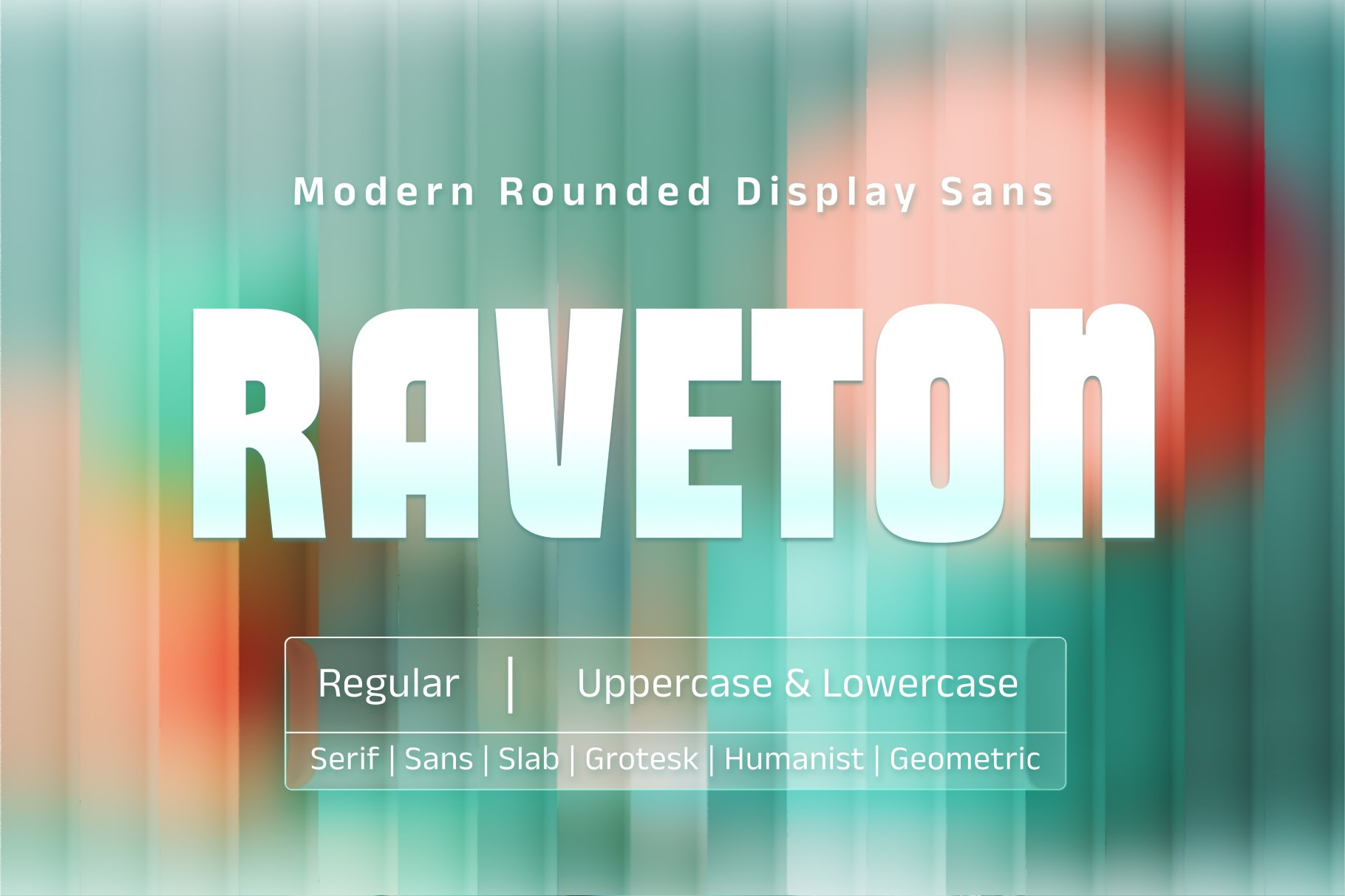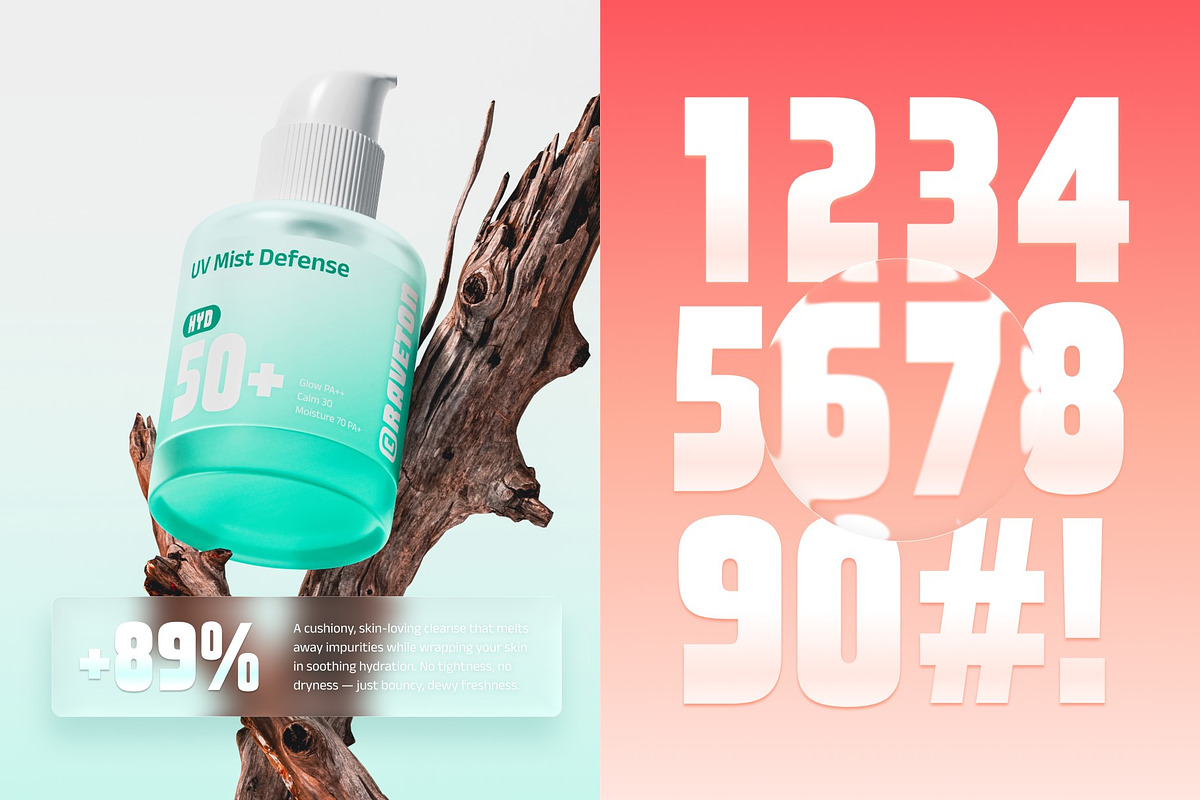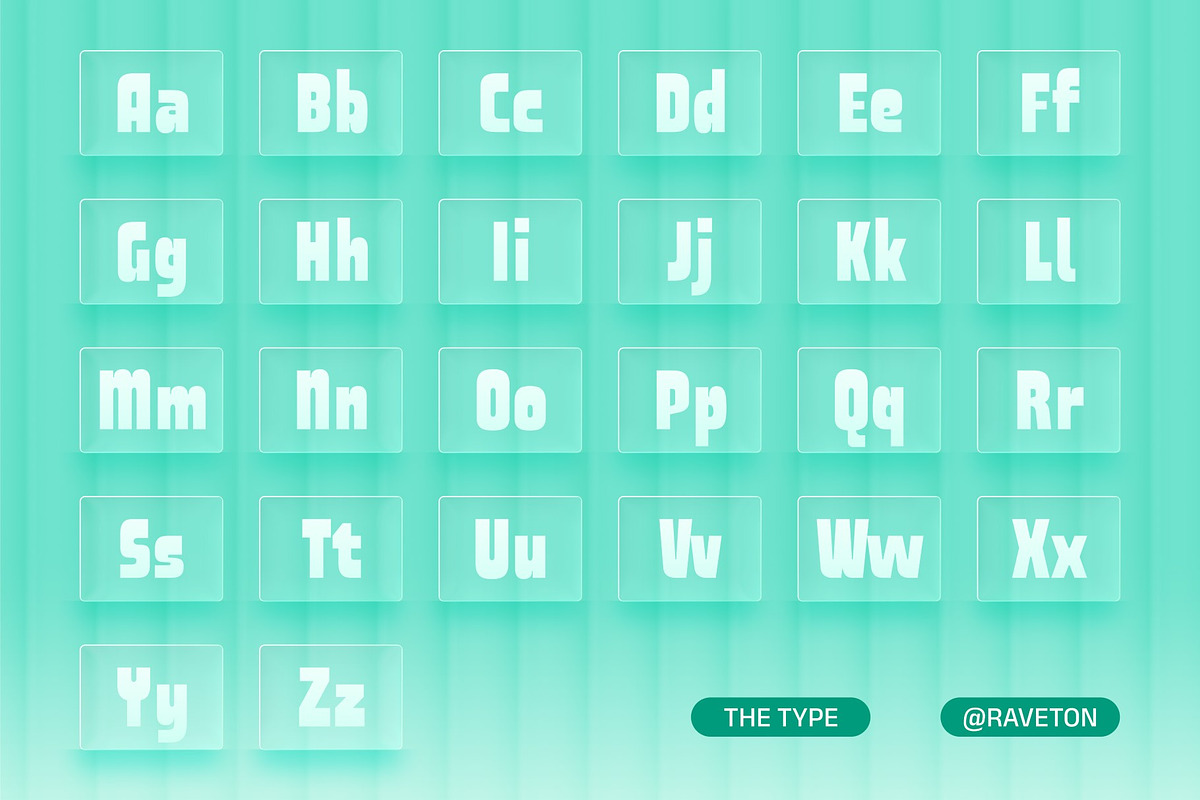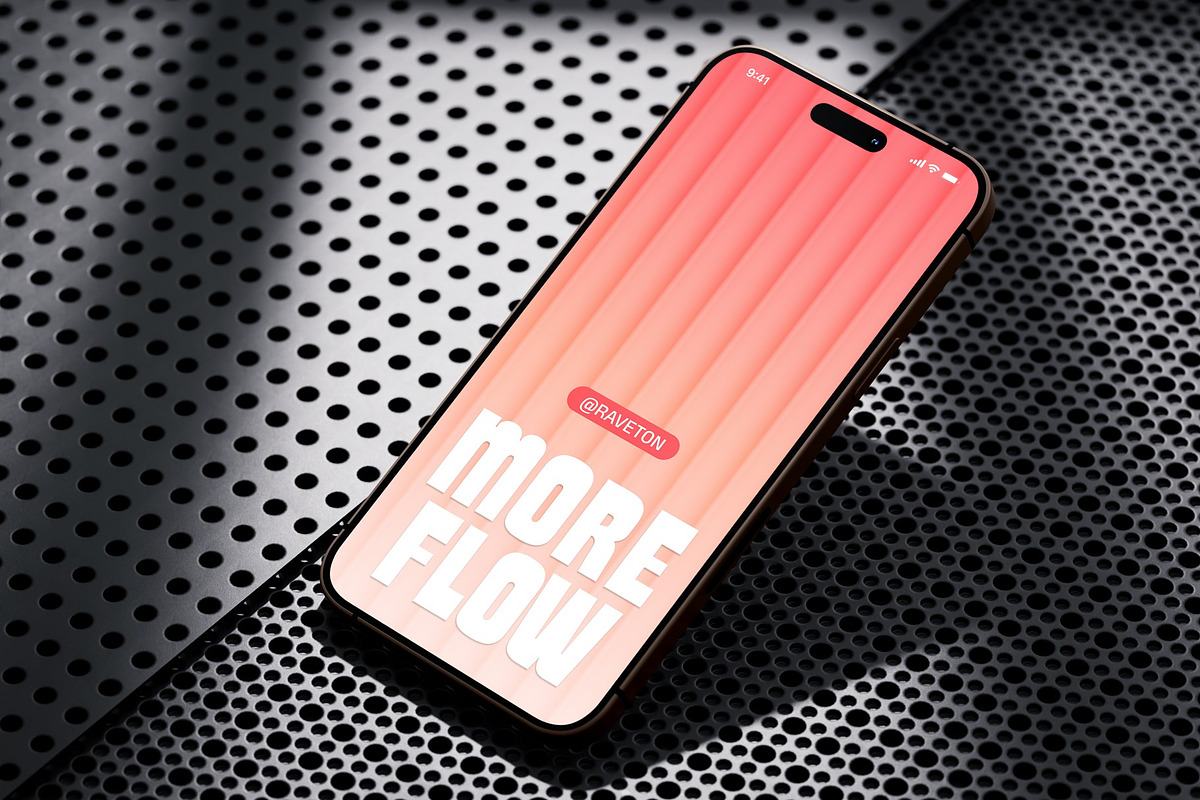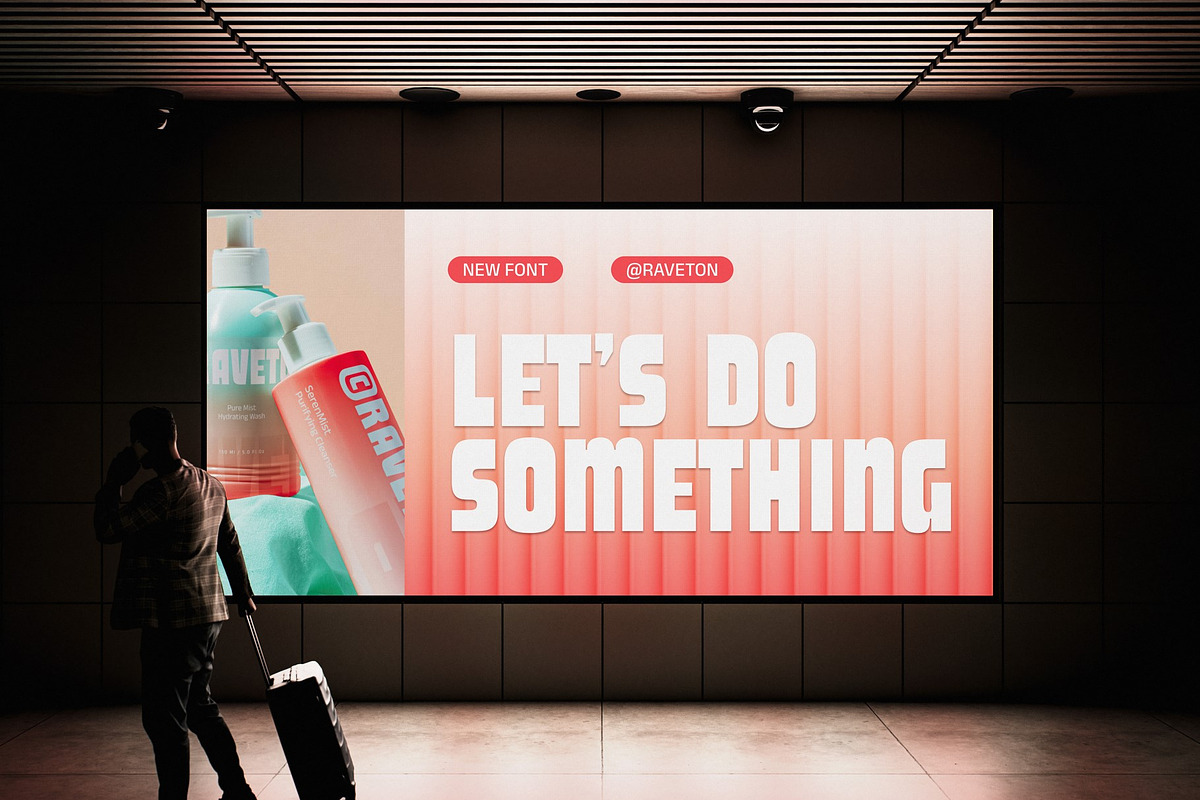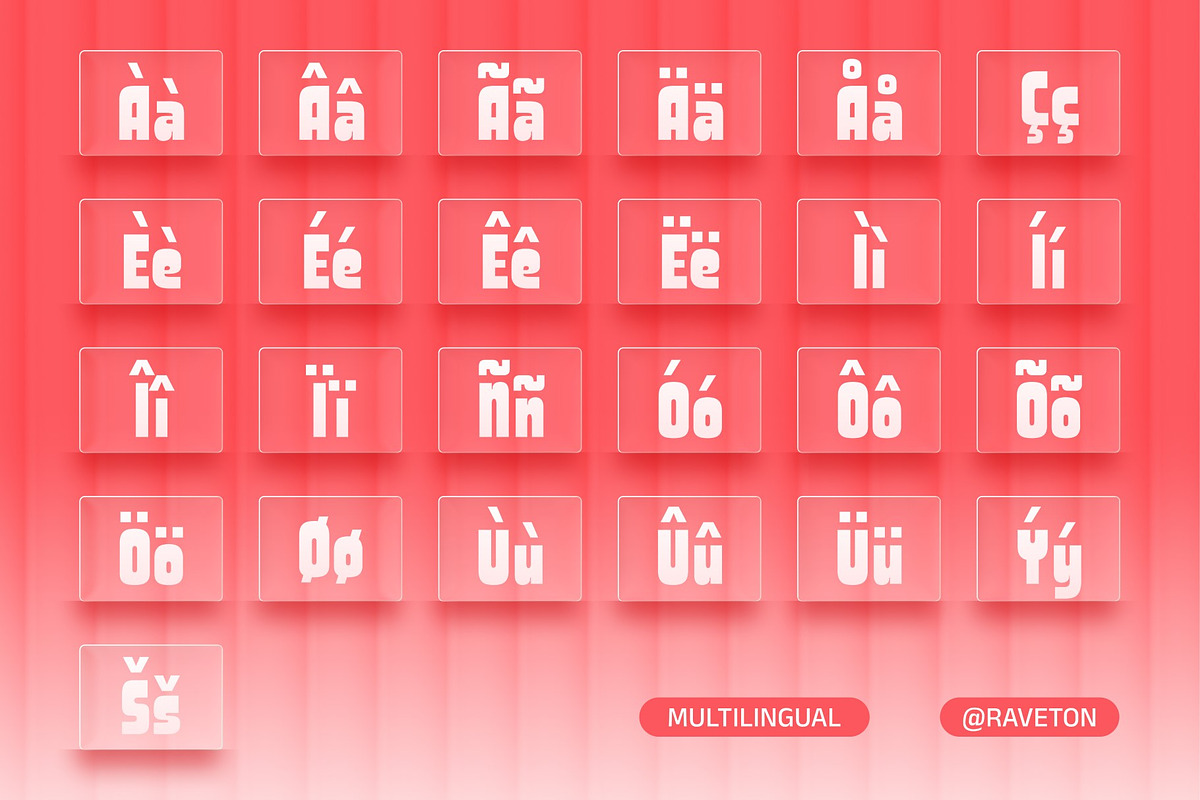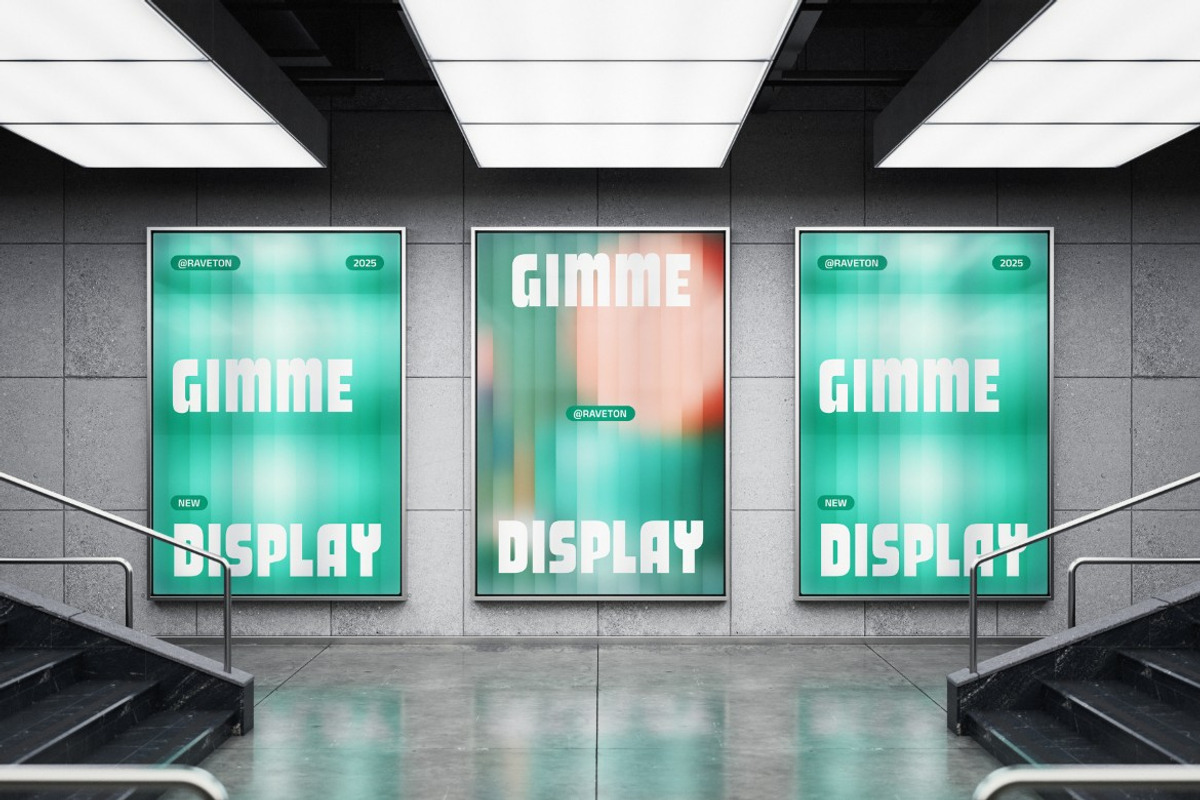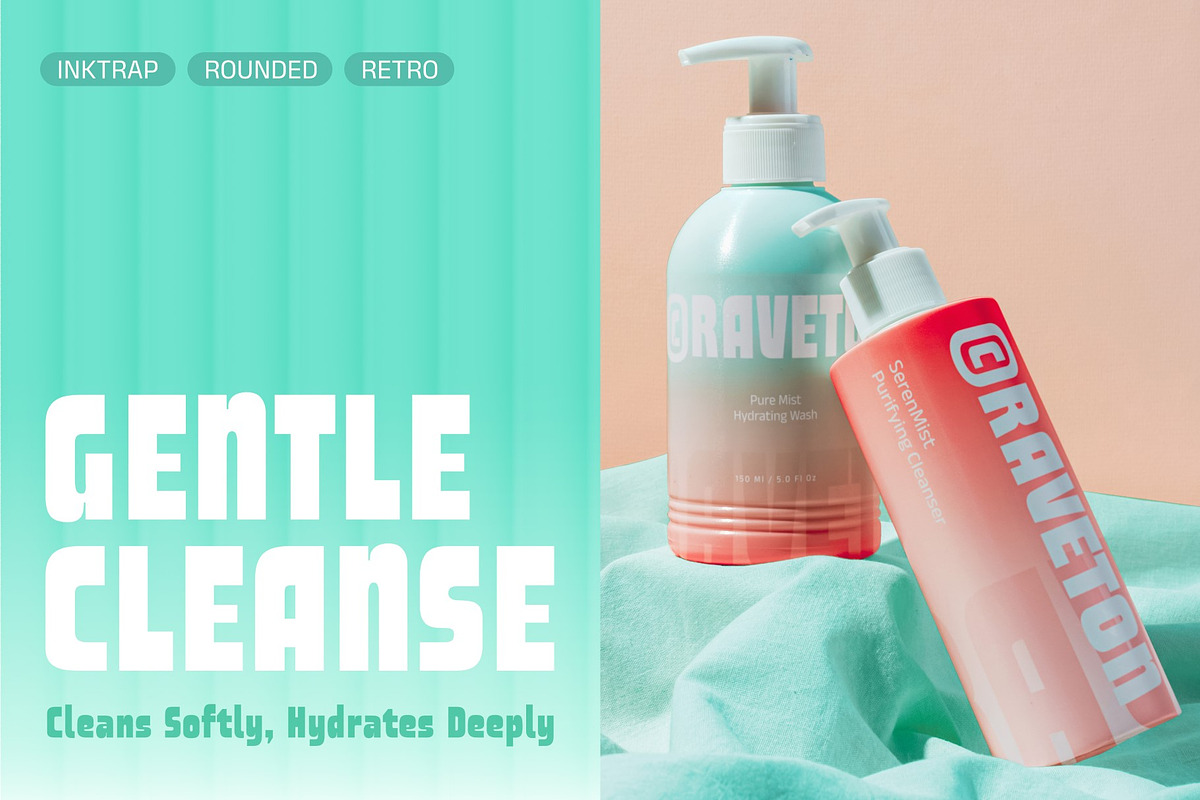
Raveton - Display Font
Raveton - Display Font with a playful retro vibe, perfect for posters, headlines, branding, and social media. Its chunky letterforms make your design stand out with strong personality. Ideal for creative projects, modern typography, and eye-catching layouts that need fun, unique, and stylish text.